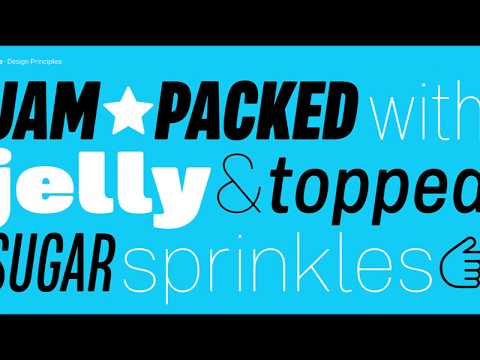
Mello is a warm, friendly and almost grotesque smooth typeface created and published by Jason Vandenberg. Featuring soft curves, rounded corners and fat lines, Mello comes with a set of 4 widths and 8 weights covering the whole extended Latin alphabet. An extra set of icons with hand signs and shapes prepares Mello as a suitable font choice for display, branding, advertising, packaging or anywhere a strong but friendly voice is needed.
Designer: Jason Vandenberg
Glyphs: Basic Latin, Diacritics, Currency, Central Europe, Alternates
Styles: Light, Regular, Medium, Black